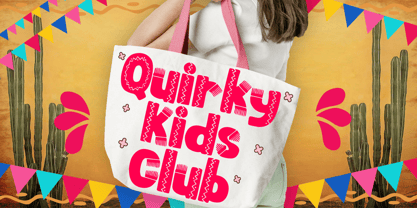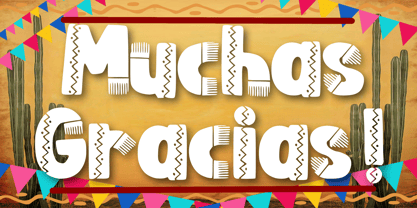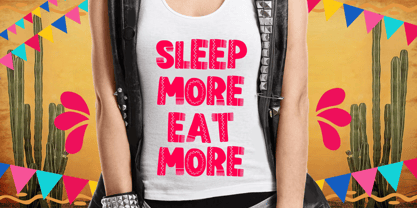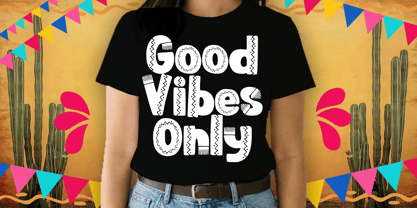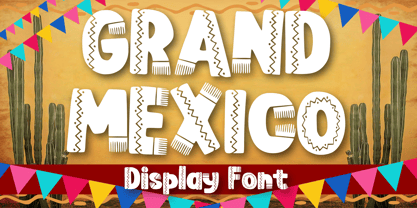
Grand Mexico
by Mvmet
The Grand Mexico Font Family was designed by Gabriel Valentinus and published by Mvmet. Grand Mexico contains 1 styles. More about this family
Unleash your originality with Grand Mexico, a vibrantly delightful and bold font that captures the playful charm of the western cowboy aesthetic. This versatile typeface serves as a canvas for a whimsical feel across a variety of projects. Whether you're designing a t-shirt, adding a laid-back touch to children's book concepts, or enhancing greeting cards, Grand Mexico is the perfect choice. Additionally, it brings a casual flair to stickers, posters, and other creative endeavors that demand personality. With its flexible style, Grand Mexico invites you to craft designs that captivate hearts and stir imaginations. Experience the joy of creating beautiful works with this uniquely charming font, ideal for branding, web design, and editorial projects.
Designers: Gabriel Valentinus
Foundry: Mvmet
Mvmet is an Indonesia-based font studio which began making fonts in early 2020. Mvmet strives to make fonts fun and accessible for both the average computer user and professional designers, with original experimental fonts and affordable trend-setting commercial fonts. Mvmet also creates custom fonts for companies who want exclusive rights and a specific design for a typeface. Clients who have used Mvmet’s custom font services include some company in Indonesia and abroad.